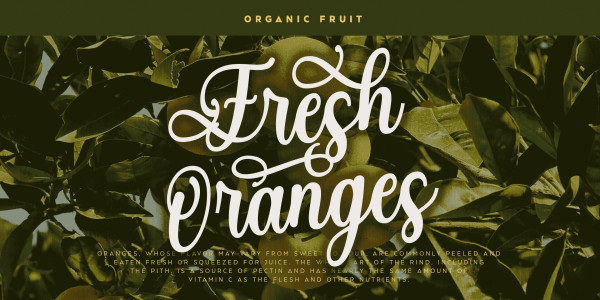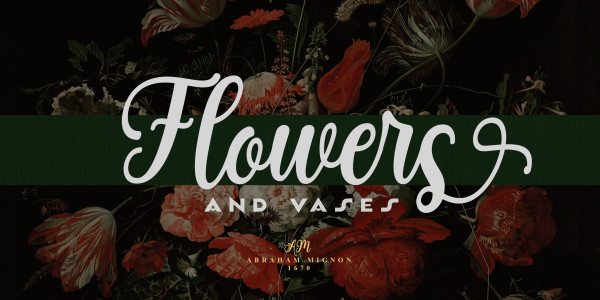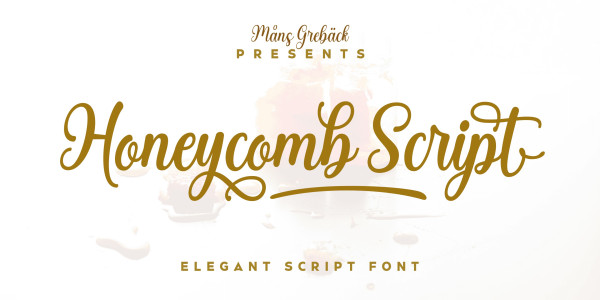
Honeycomb Script Font
Honeycomb Script Font, is a delightfully charming handwriting font, boasting a cute and quirky aesthetic. With its naive and endearing style, it captures the magical essence of the natural world’s sweetest architect.
Use one or multiple underscores _ anywhere in a word to add a decorative underline.
Example: Sweet_____Honey
Try using # before or after any word to make lovely swashes.
Example: #beehive#